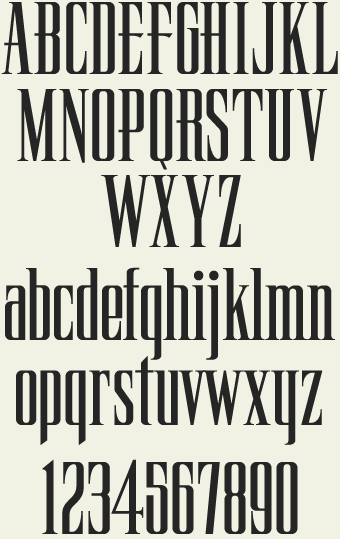
| LHF Ridgecrest by John Davis |
LHF Ridgecrest is a serious style for serious designs. Narrow letters make it ideal for book and movie titles. Font includes lowercase and several alternates for maximum flexibility.